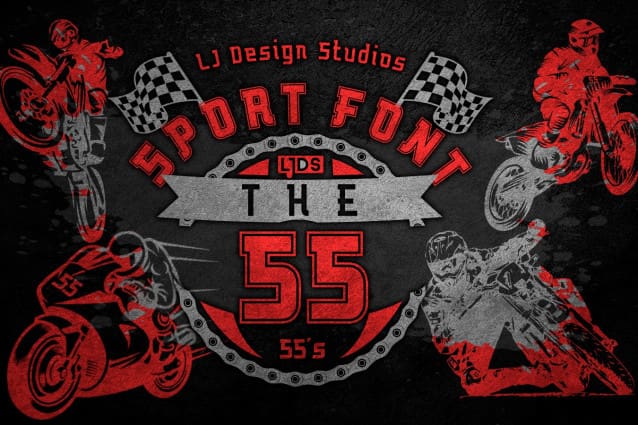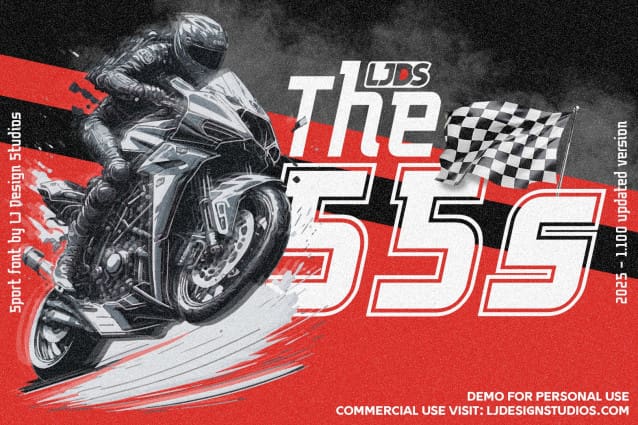
The 55s Font
The 55s Font – we created a semi-sports font with a very elegant style thinking of lovers of motor sports, especially high-speed motorcycles. With a small body of research, we bring together ideas, concepts and art forms to achieve this simple yet modern and stable result.
Are you a designer for racing drivers or are you a pilot? who customize your number or name? We believe that The 55s font is a good choice for you.